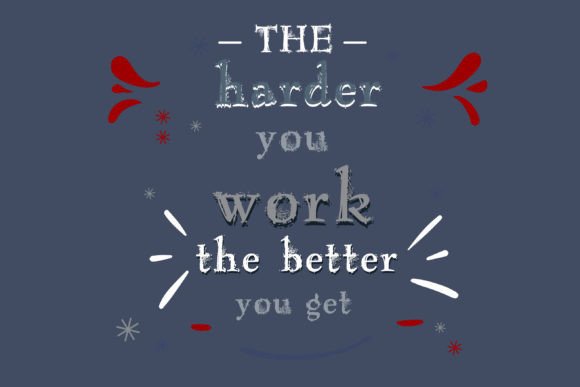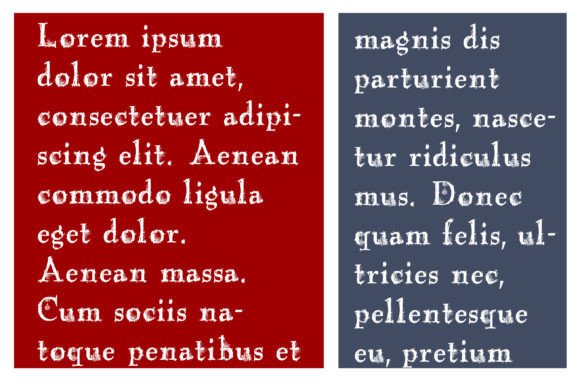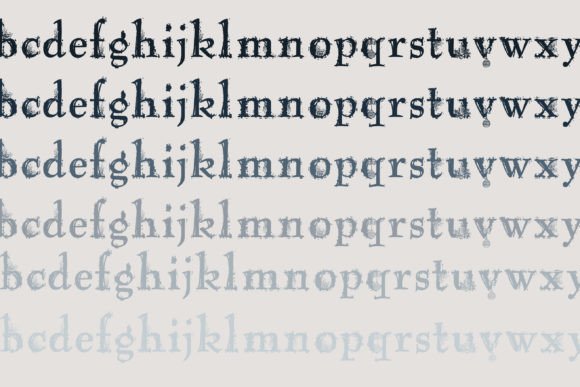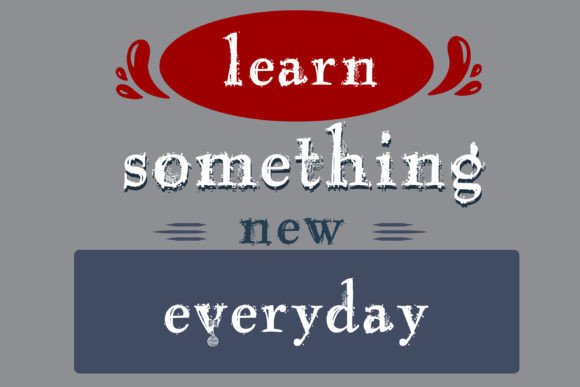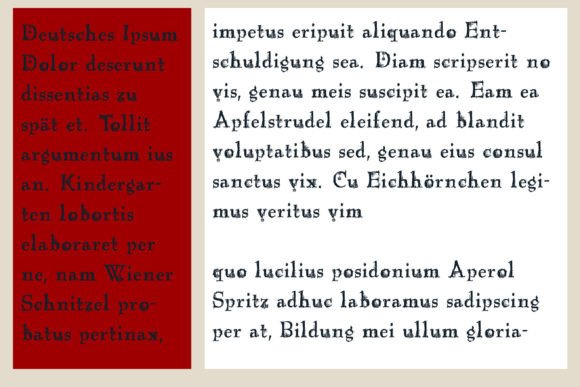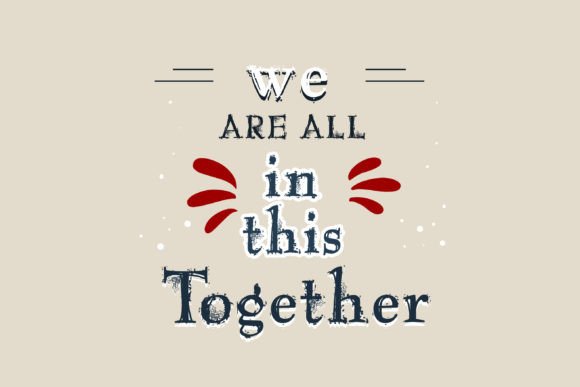
Deck the Halls with Antique Christmas Font: A Hand-Crafted Serif Delight
As the holiday season approaches, designers and crafters are on the lookout for unique and festive typography to make their Christmas creations stand out. Look no further than the Antique Christmas Font, a hand-crafted serif font that combines antique charm with grunge Christmas illustrations. In this article, we’ll dive into the world of hand-crafted fonts, explore the characteristics of the Antique Christmas Font, and discuss how to make the most of this delightful font in your holiday designs.
A hand-crafted font, also known as a handwritten font, is a typeface that is designed to mimic the look of handwriting. Each letter and character is carefully crafted to resemble the imperfections and uniqueness of handwritten script. Hand-crafted fonts can range from formal and elegant to informal and playful, making them versatile for various design applications.
The Charm of Hand-Crafted Fonts
Hand-crafted fonts offer a range of benefits for designers and crafters. They can add a personal touch to invitations, greeting cards, and other materials, making them feel more special and unique. Handwritten fonts can also evoke a sense of nostalgia, transporting us back to a time when handwritten letters and notes were a primary means of communication.
Moreover, hand-crafted fonts can be used to create a sense of whimsy and playfulness in designs. They are perfect for projects that require a more casual and relaxed tone, such as party invitations, social media graphics, and craft tutorials.
Characteristics of the Antique Christmas Font
The Antique Christmas Font is a beautiful example of a hand-crafted serif font. Its antique charm is evident in its distressed and worn appearance, which gives it a vintage feel that’s perfect for holiday designs. The font features:
- Hand-crafted serif letters and characters with an antique, grunge Christmas feel
- Unique and intricate illustrations of Christmas-themed elements, such as holly, mistletoe, and snowflakes
- A distressed and worn appearance that adds to its vintage charm
- Support for multiple languages and a range of special characters
Using the Antique Christmas Font in Your Designs
The Antique Christmas Font is a versatile font that can be used in a variety of holiday designs, including:
- Christmas invitations and greeting cards
- Holiday party decorations and signage
- Social media graphics and holiday-themed posts
- Craft tutorials and DIY project instructions
- Packaging and labeling for holiday-themed products
Tips for Choosing the Right Hand-Crafted Font
With so many hand-crafted fonts available, it can be challenging to choose the right one for your project. Here are some tips to keep in mind:
- Consider the tone and style of your project: Formal or informal, playful or elegant?
- Think about the audience: What type of font will resonate with your target audience?
- Look for a font that is legible and easy to read
- Experiment with different fonts and combinations to find the perfect fit
The Antique Christmas Font is a delightful hand-crafted serif font that adds a touch of antique charm and grunge Christmas illustrations to your holiday designs. With its unique characteristics and versatility, it’s perfect for a range of design applications, from invitations and greeting cards to social media graphics and craft tutorials.
By understanding the benefits and characteristics of hand-crafted fonts, designers and crafters can make informed choices when selecting a font for their projects. Whether you’re looking to create a formal and elegant design or a playful and whimsical one, the Antique Christmas Font is sure to delight.